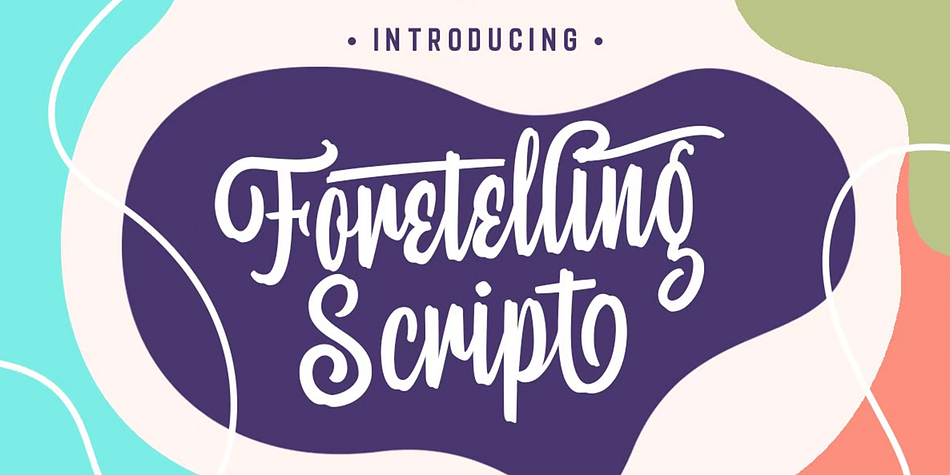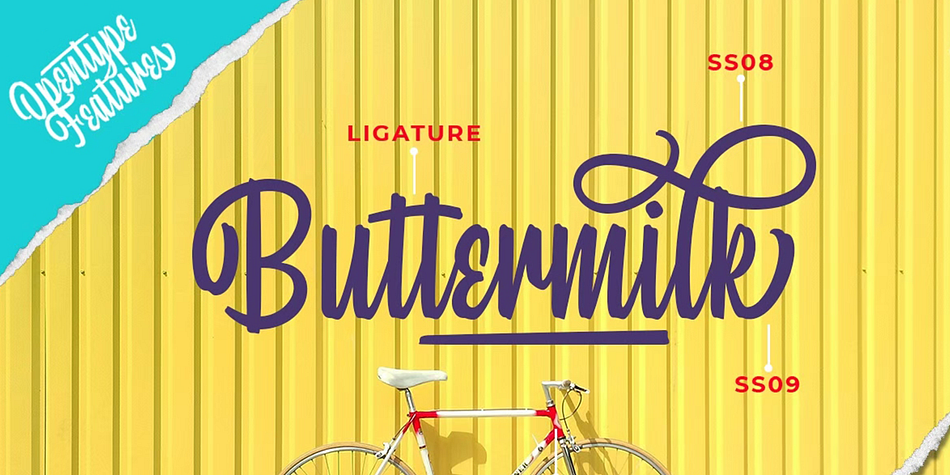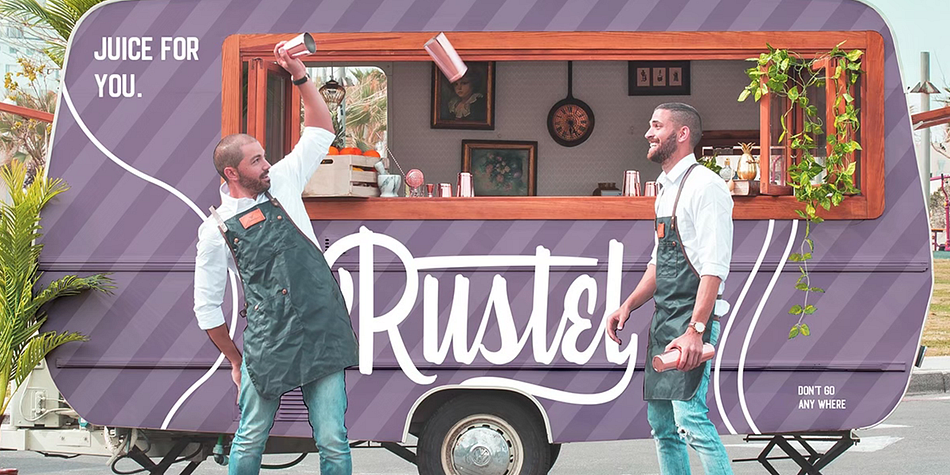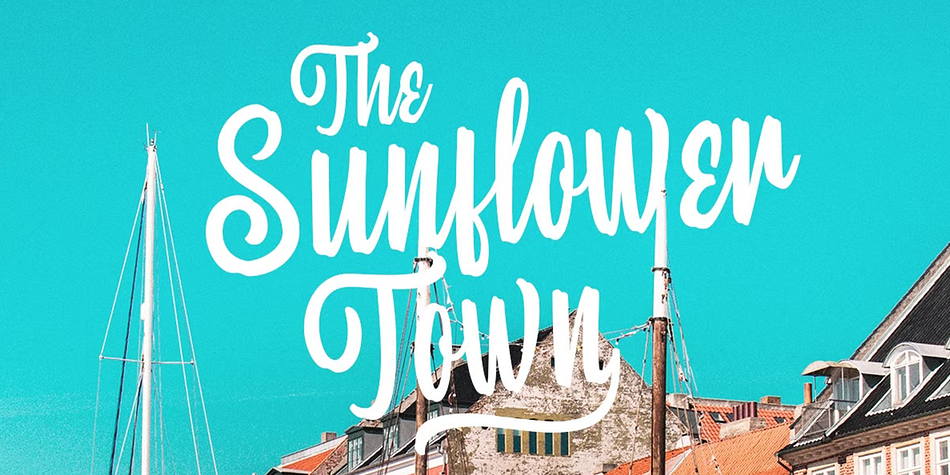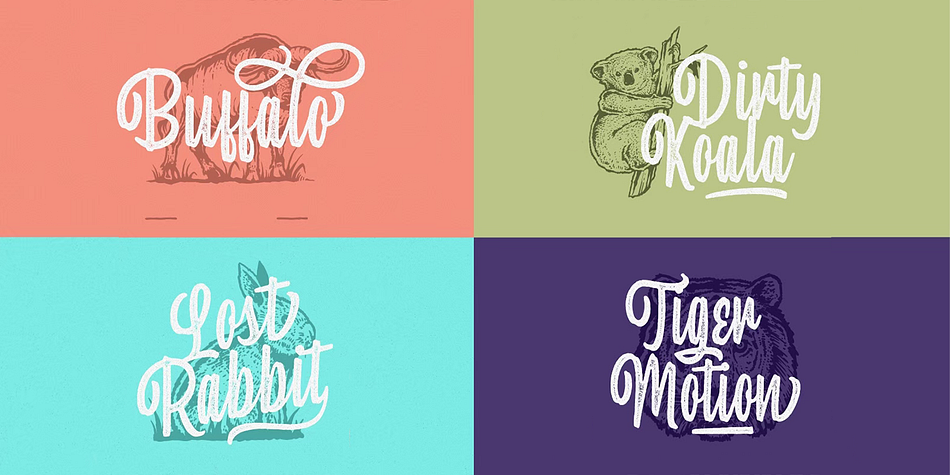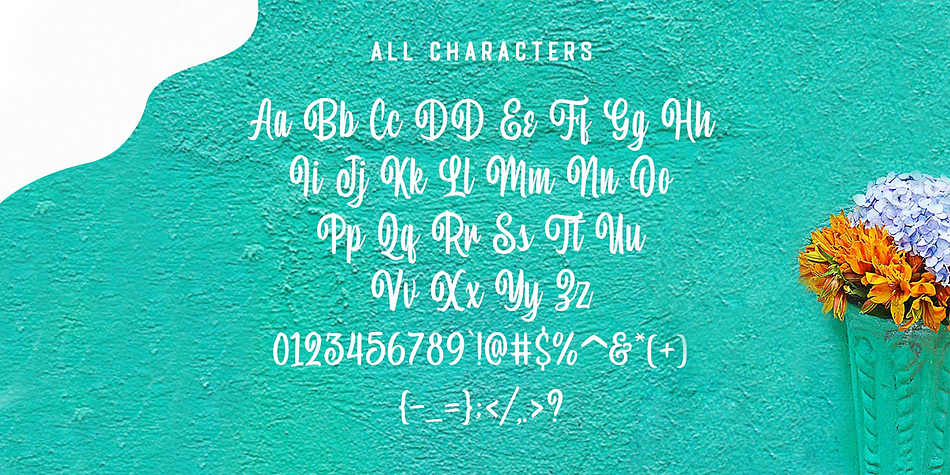
Designed by Hendry Juanda, Foretelling Script is a brush script and script font family. This typeface has three styles and was published by Letterhend Studio.
Introducing, Foretelling Script. A condensed script typeface. A fun, playful and casual script made by natural hand writing. This type of font perfectly made to be applied especially in logo, and the other various formal forms such as invitations, labels, logos, magazines, books, greeting / wedding cards, packaging, fashion, make up, stationery, novels, labels or any type of advertising purpose.
Available in 3 styles : Reguler, Rough and Stamps
- swashes and ligatures
- alternates